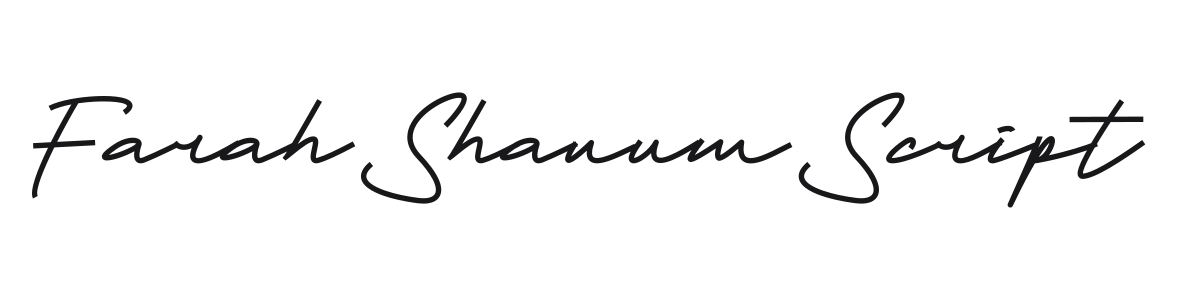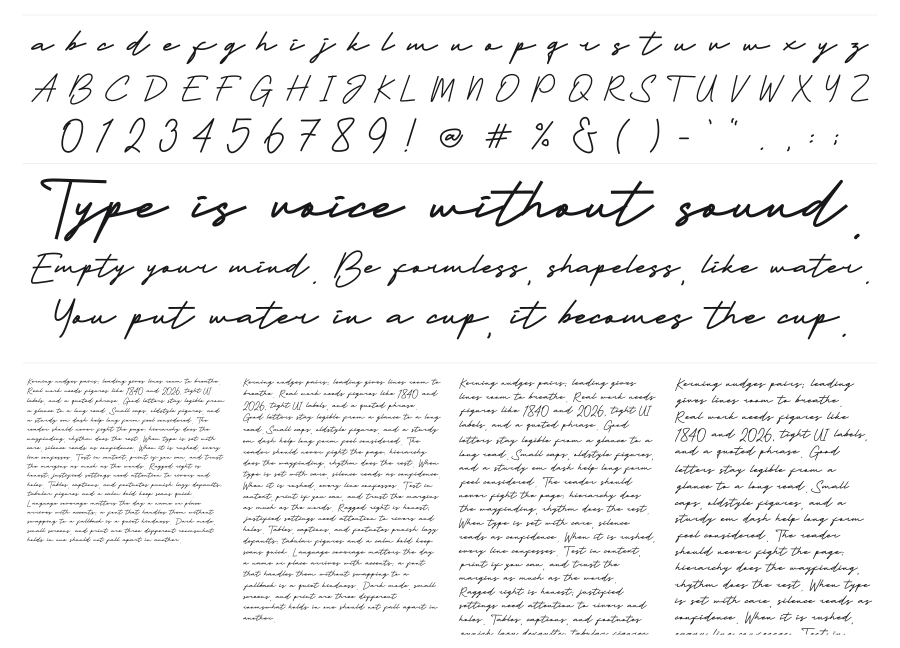
Farah Shanum Script
Farah Shanum Script is a flowing casual script from MENK Studio built on the feel of an unhurried pen signature. The near-monoweight strokes and long connecting sweeps give it an effortlessly romantic quality that reads as both personal and polished. It suits brand identities, packaging, and event materials where a genuine handwritten presence matters.